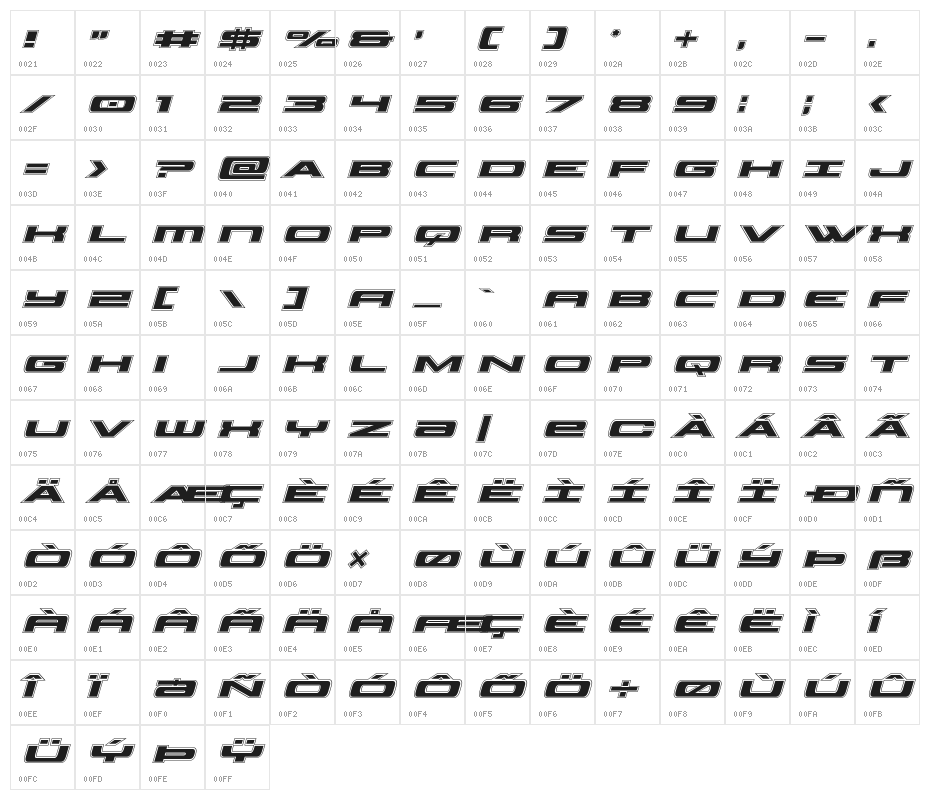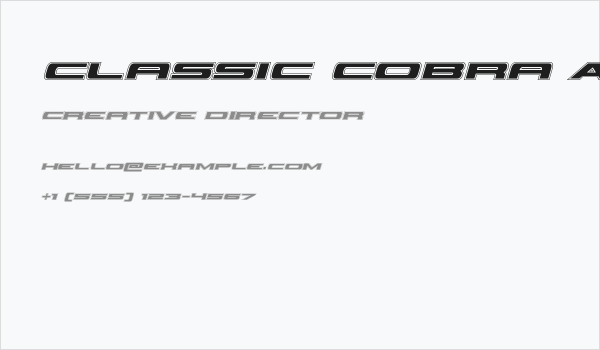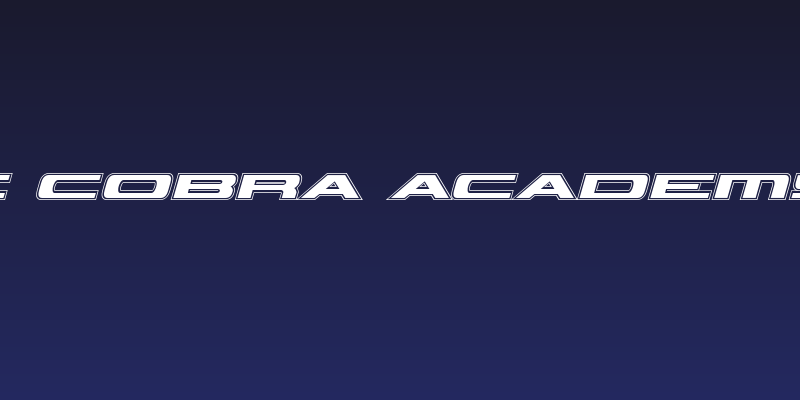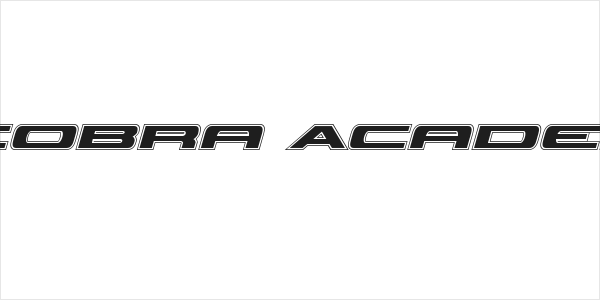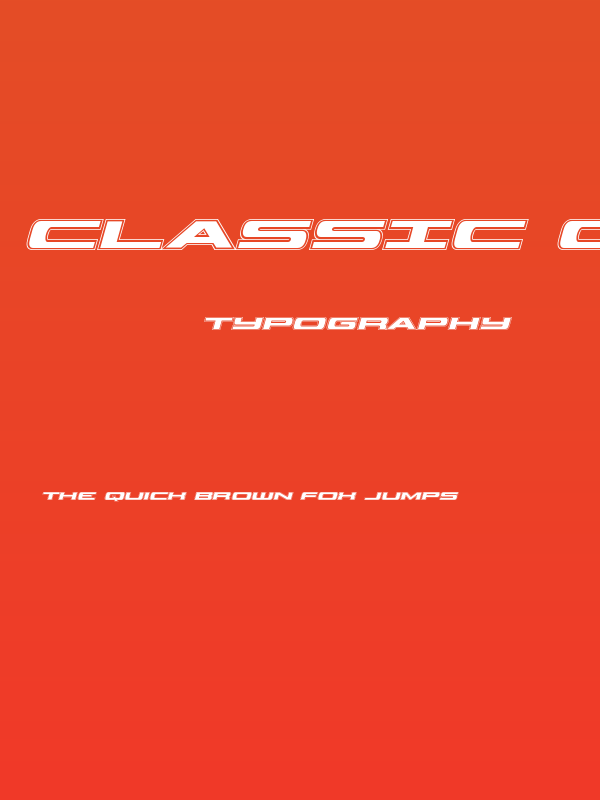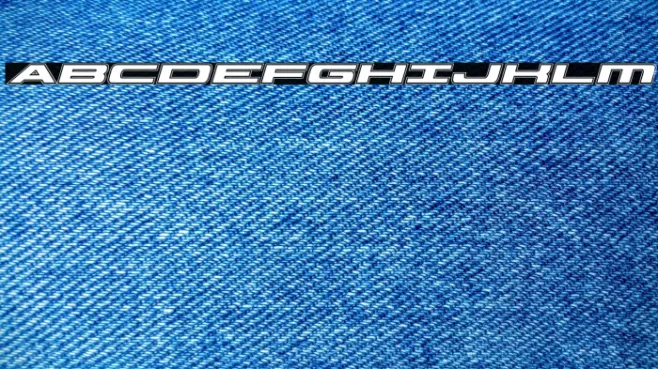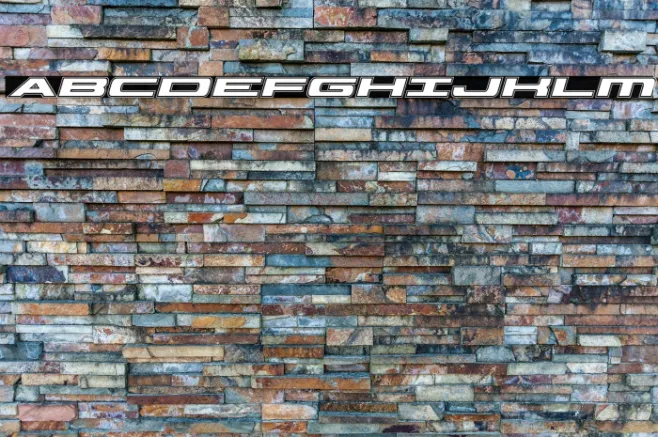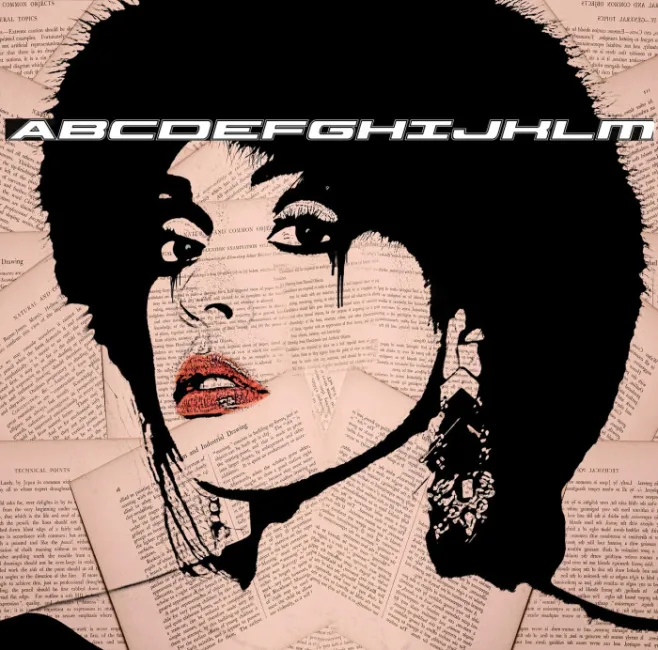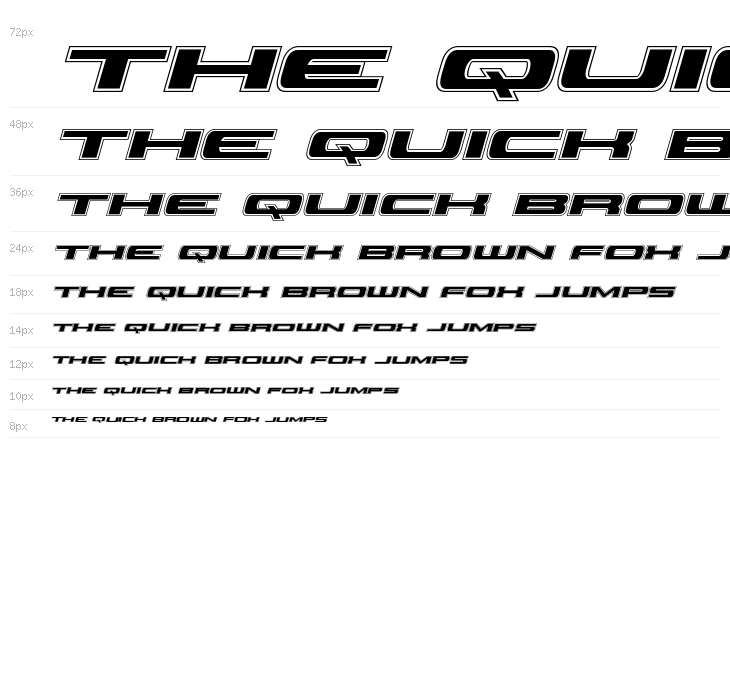
Classic Cobra Academy Italic Font
Classic Cobra Academy Italic Description
This font features a bold, italicized style with a distinctly modern and dynamic appearance. The characters are designed with a sleek, aerodynamic look, reminiscent of speed and movement. The uppercase letters are particularly striking, with sharp angles and a sense of forward momentum. The lowercase letters maintain this theme, offering a cohesive and energetic feel throughout. Numbers and special characters are equally bold, ensuring consistency across all text elements. The font's design is ideal for projects that require a sense of action and modernity.